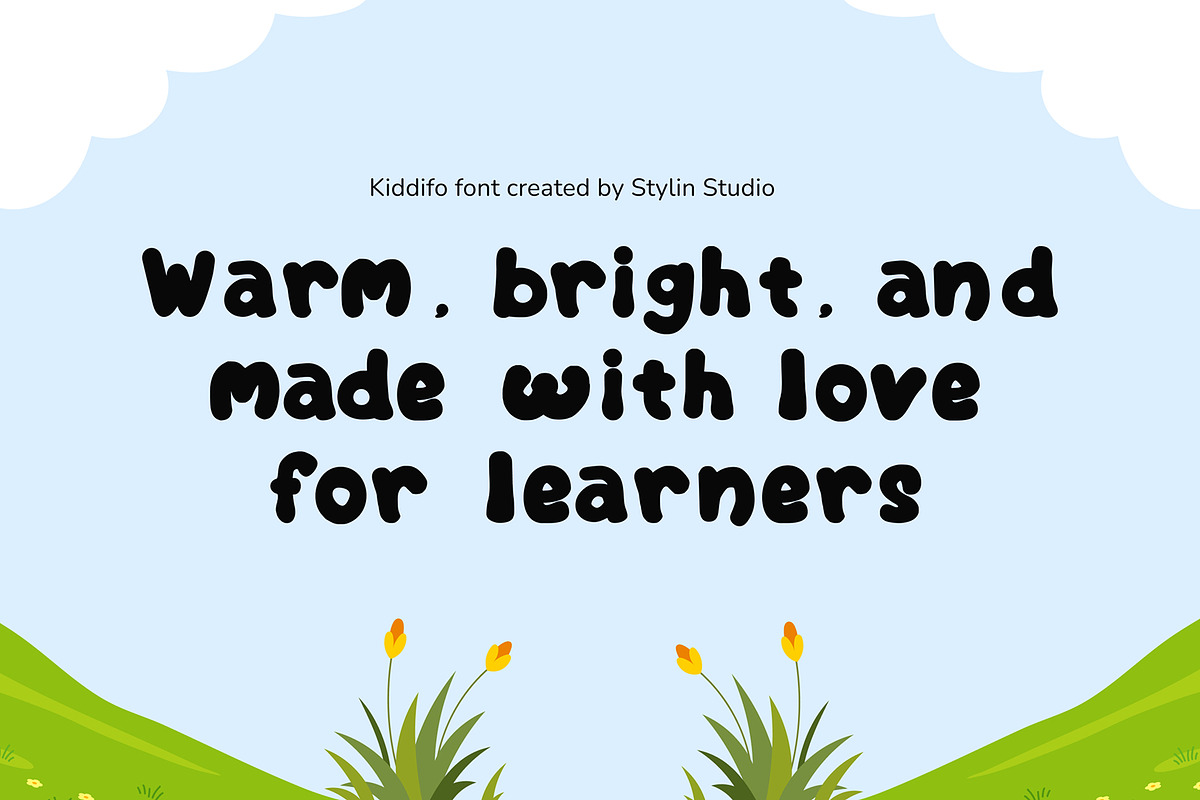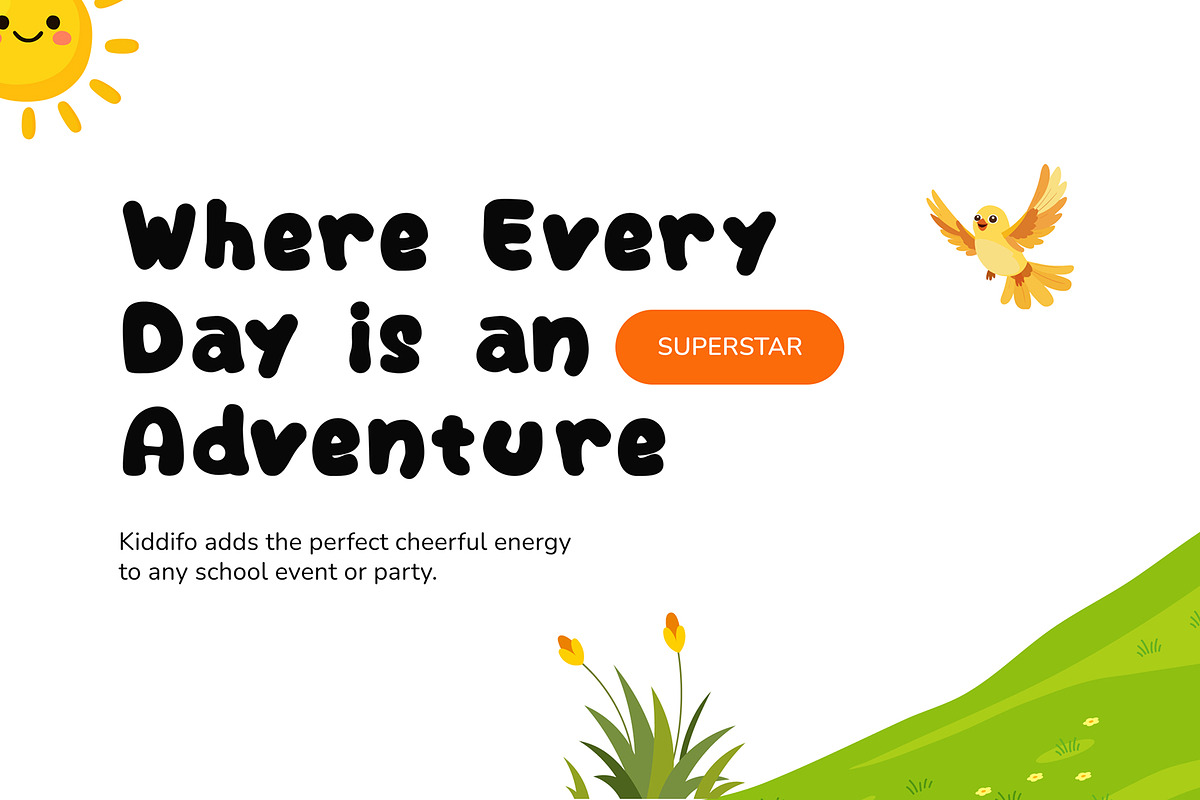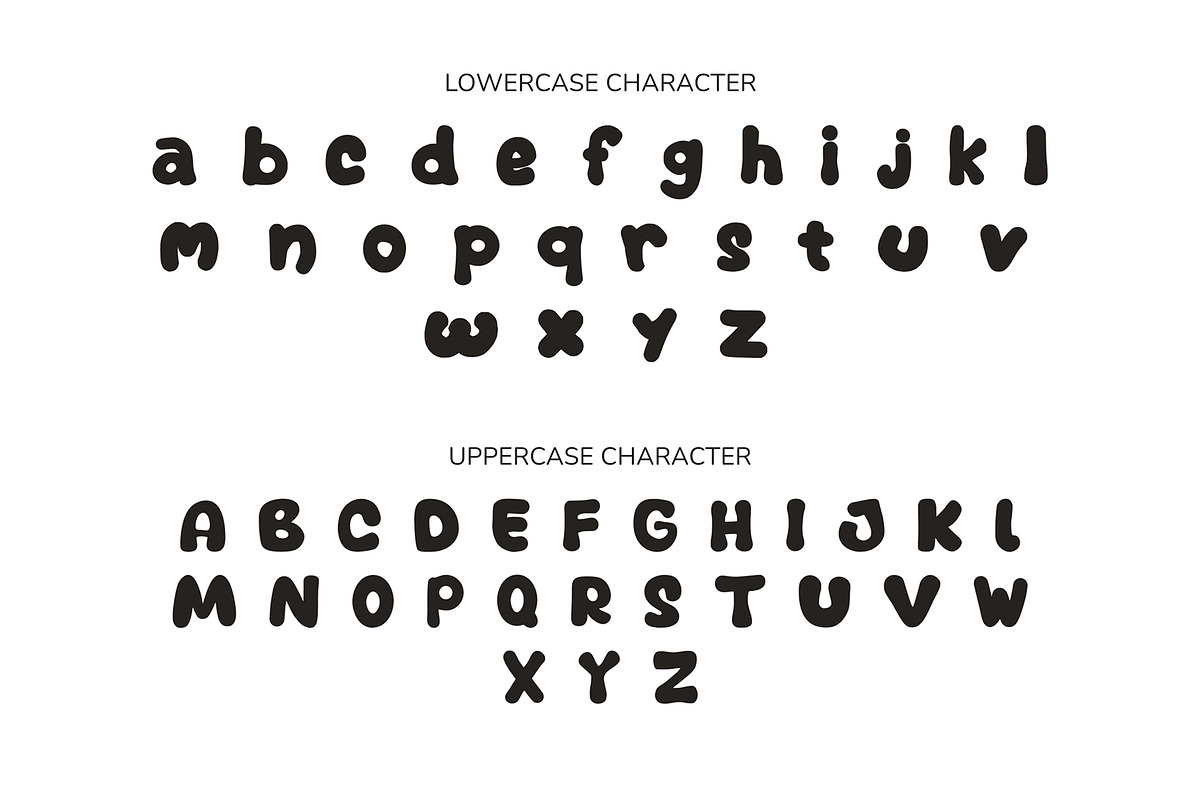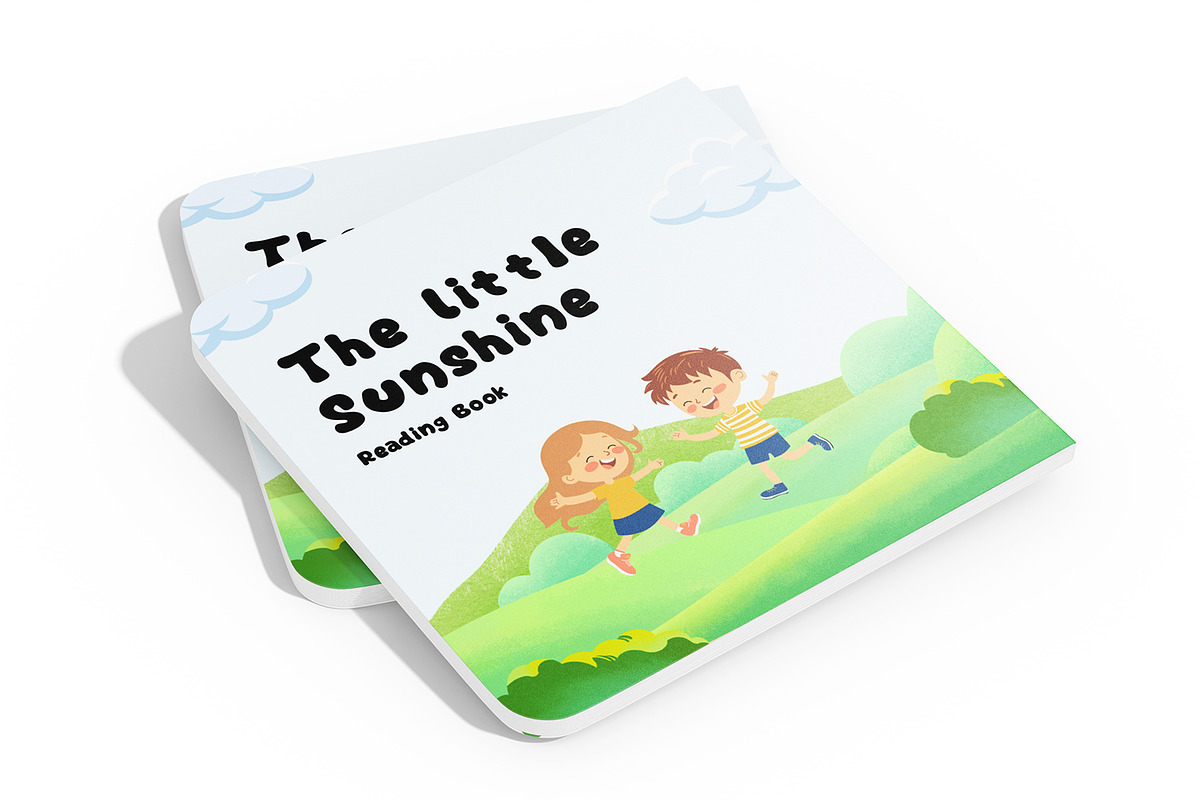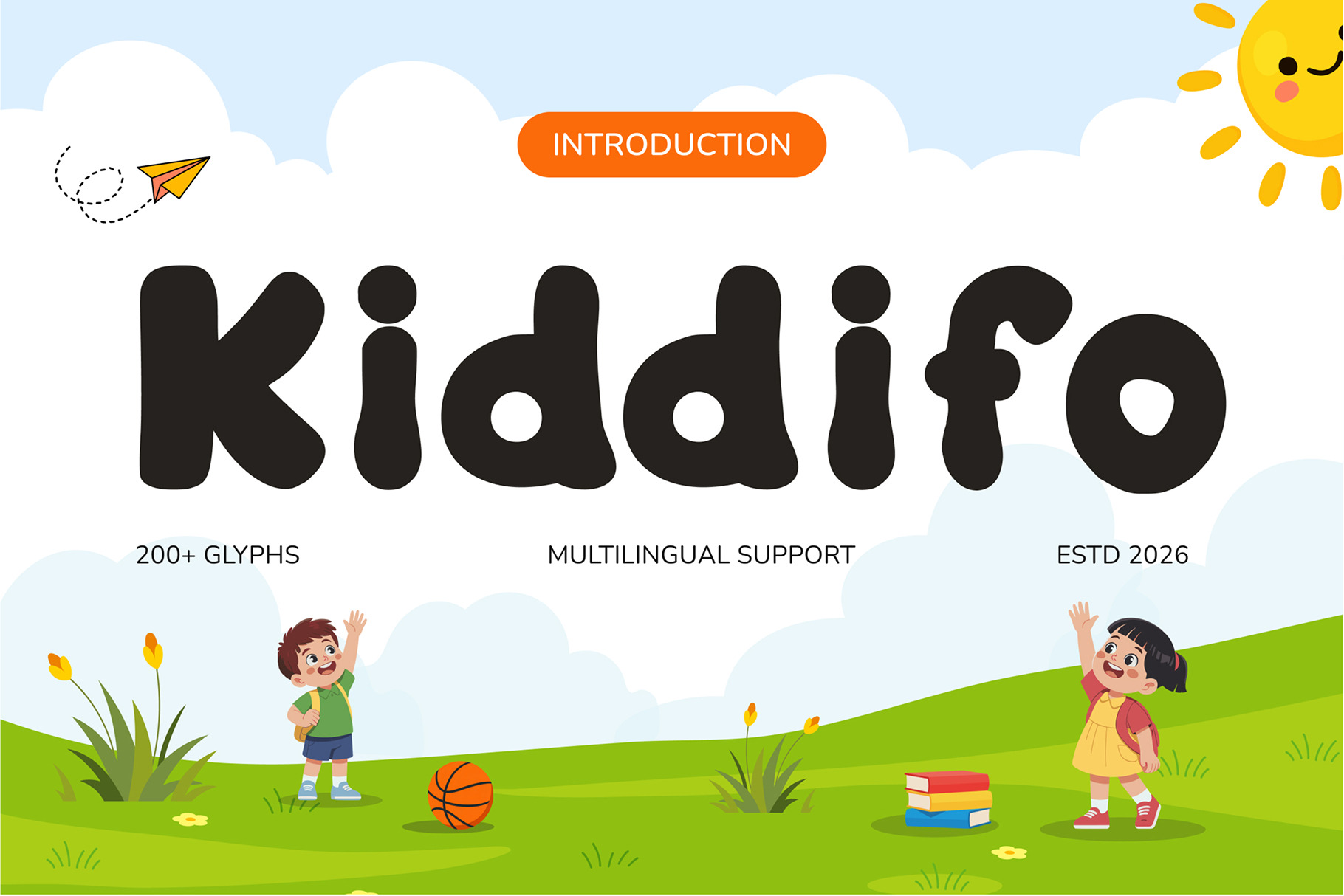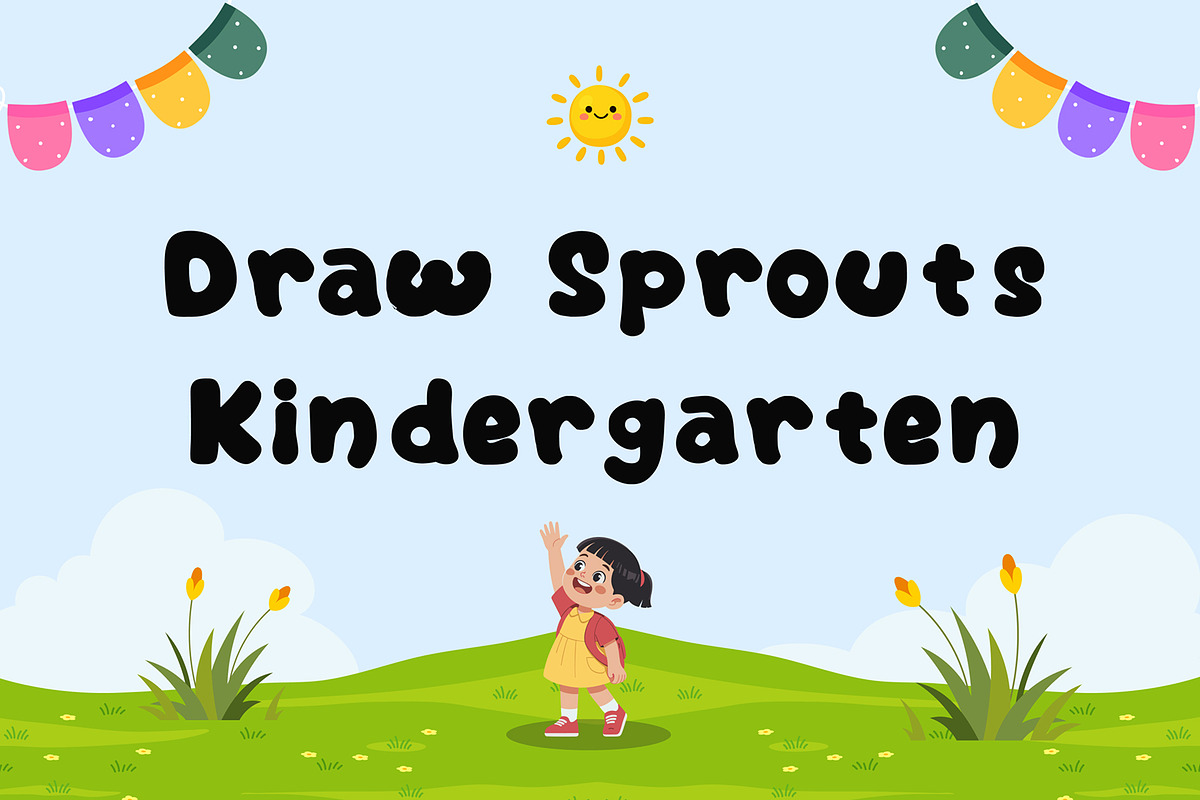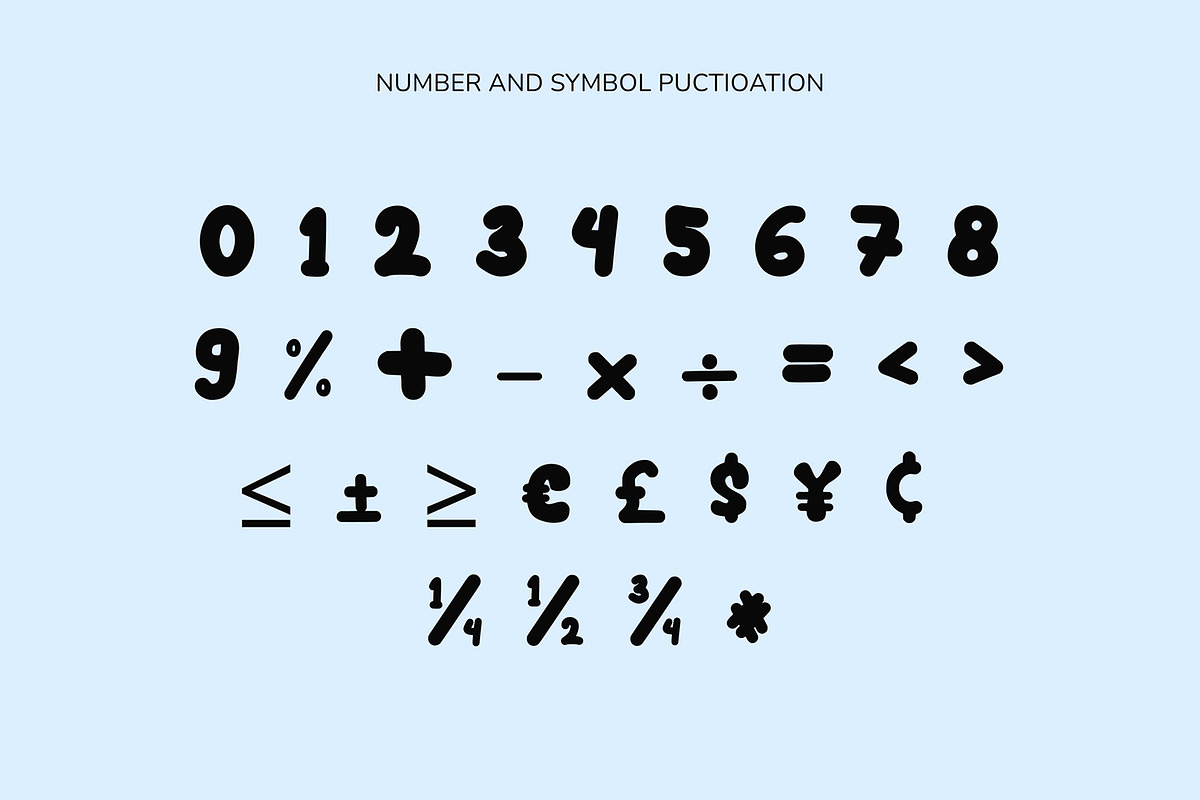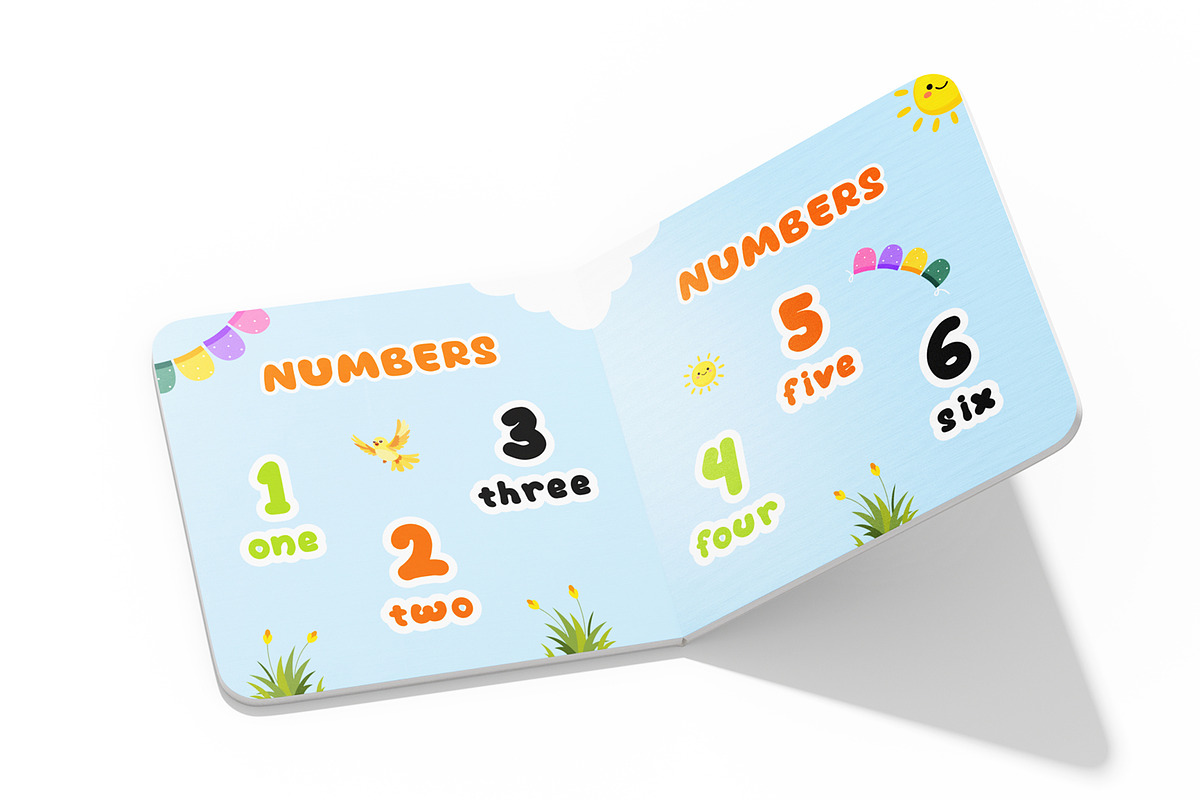
Kindergarten – Kiddifo Font
Kindergarten - Kiddifo Font is a fun and friendly display typeface designed to bring a playful and cheerful personality to every design. With its rounded shapes, lively character, and approachable letterforms, Kiddifo creates a warm and joyful aesthetic that feels perfect for young audiences. Ideal for projects that aim to convey creativity, happiness, imagination, and a sense of fun.
From kindergarten materials to children's brands, Kiddifo adds a playful and friendly character to every project. Its cheerful appearance makes it ideal for classroom posters, kids' books, activity sheets, toys, games, invitations, social media visuals, packaging, logos, and creative children's designs.